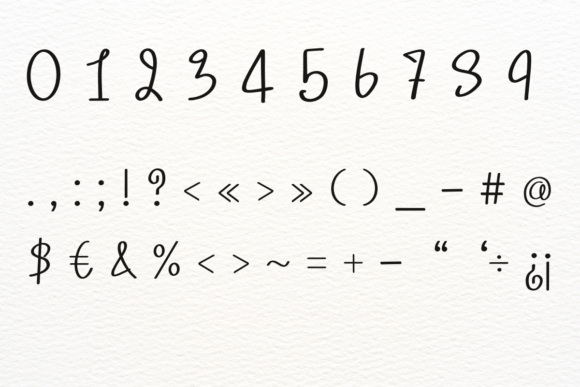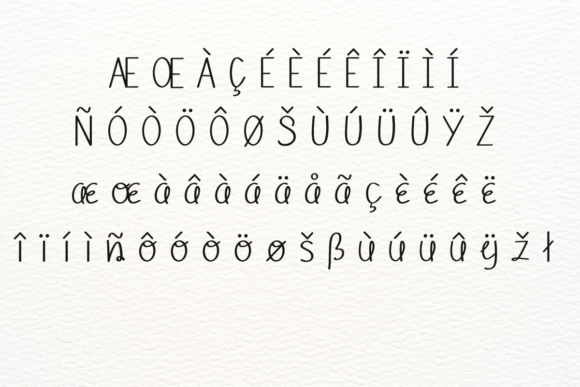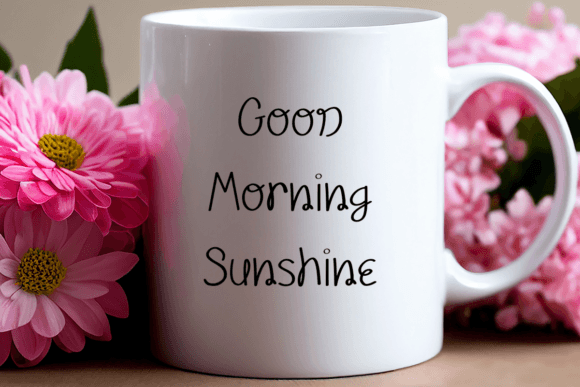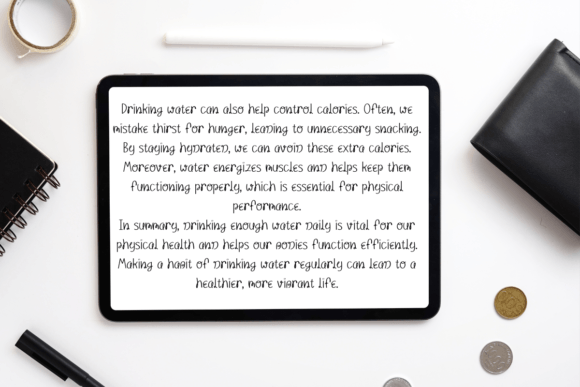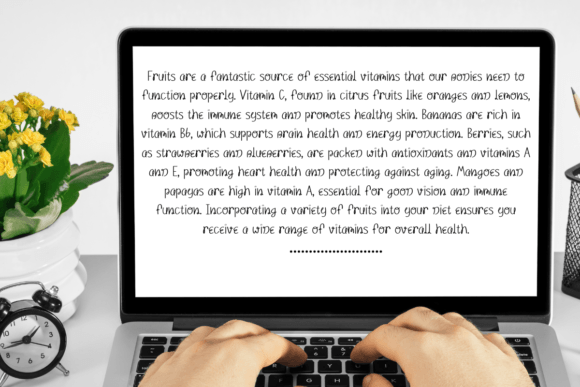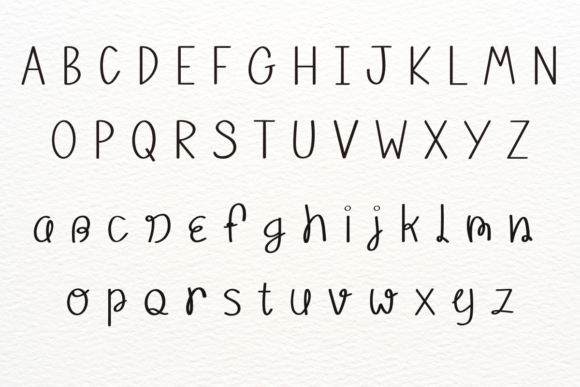
The Elegance of Cacao Font: Elevating Your Designs to New Heights
Have you ever been stuck on a design project, scrolling through font options for hours, searching for that perfect combination of style and sophistication? You know, that moment when everything clicks, and you finally find the font that elevates your entire concept? For many designers, that moment is what drives creativity, and it’s exactly what Cacao Font is designed to deliver.
Cacao Font is a modern typeface that embodies the essence of contemporary elegance. With its delicate strokes, slender letterforms, and minimalist design, this font exudes a sleek and sophisticated aesthetic that’s perfect for fashion editorials, luxury branding, and projects that demand a refined touch. For designers, Cacao Font is a valuable asset that adds a touch of sophistication to any design, making it an essential addition to any font collection.
Cacao Font Key Features
- Font Family: Cacao Font comes in a single font family with various weights and styles, making it versatile for different design needs.
- Character Count: The font family includes a wide range of characters, including Latin, Greek, and Cyrillic scripts, as well as punctuation and symbols.
- Unique Characteristics: Cacao Font features a unique, hand-drawn style with subtle imperfections, giving it a distinctive and human touch.
Cacao Font Review
I recently had the chance to work with the Cacao Font, and I must say, it’s a delightful addition to any design project. Here are some of its standout features:
- ✨ Elegant and sophisticated aesthetic: Cacao Font exudes a sense of luxury and refinement, making it perfect for high-end brands and designs.
- ✨ Versatility: This font is incredibly versatile and can be used for a wide range of applications, from body text to headlines.
- ✨ Unique character set: Cacao Font comes with a unique character set that adds a touch of whimsy and personality to your designs.
However, there are some limitations to keep in mind:
- ⚠️ Limited language support: Cacao Font may not support all languages, which could be a issue for multilingual designs.
- ⚠️ Not ideal for small text: Due to its elegant and refined nature, Cacao Font may not be the best choice for small text sizes, where legibility can be compromised.
Overall, I’m really impressed with Cacao Font. It’s a beautiful and versatile font that can add a touch of sophistication to any design. While it may have some limitations, I think it’s well worth considering for your next project.
Tips for Getting the Most Out of Cacao Font
For best results, use Cacao Font in bold or italic styles to add emphasis to your text.
Cacao Font works well for headings, titles, and short paragraphs.
Cacao Font is ideal for:
– Creating eye-catching headings and titles
– Designing promotional materials, such as brochures and flyers
– Adding a touch